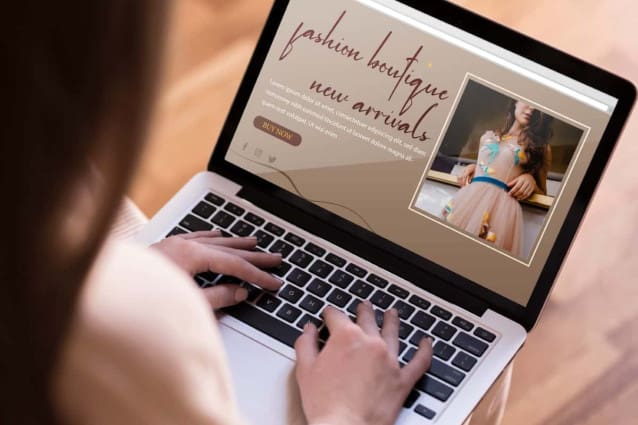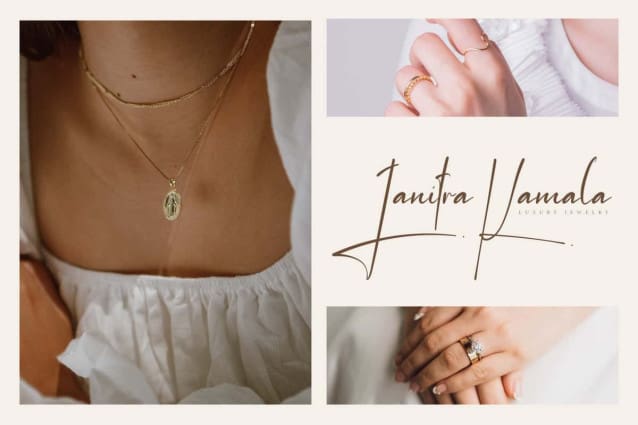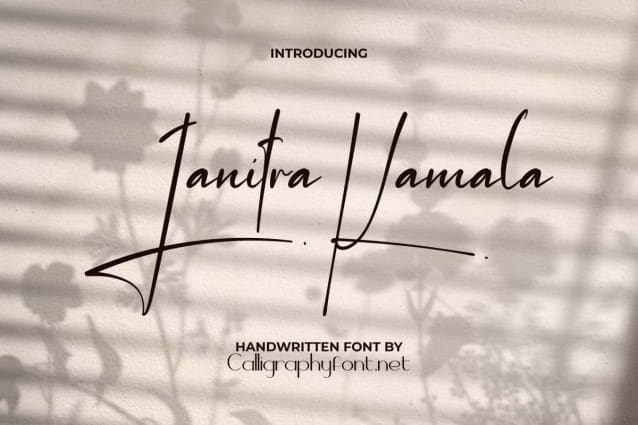
Janitra Kamala Font
Janitra Kamala Font is a casual handwriting signature font that is made thin with significant differences in the size of the letter characters. This will give a natural look to your project. It is ideal for blogs, brand logo, covers, greetings, invitations, labels, mockup stationery, signature design, postcards, quotes, stickers, titles, watermarks, websites and others.
Janitra Kamala Font is a charming handwritten font often inspired by the look of scripts and historical writing styles that weave each character of the letter together into one elegant connection. This font perfect for apparel, bridal boutique, cafeteria, cosmetic, fashion, florist, furniture, graphic design, handicraft, home decoration, jewelry, photography, restaurant, skincare, spa salon, wedding design and any project that requires an authentic handwritten touch.